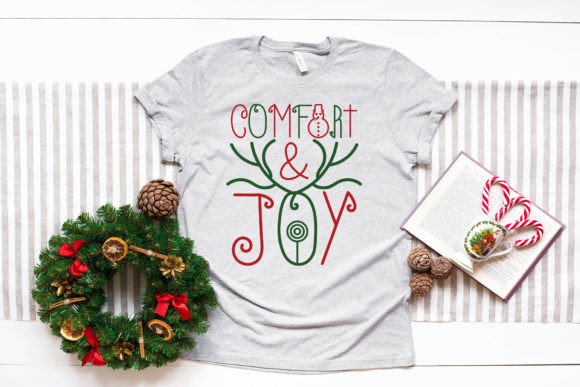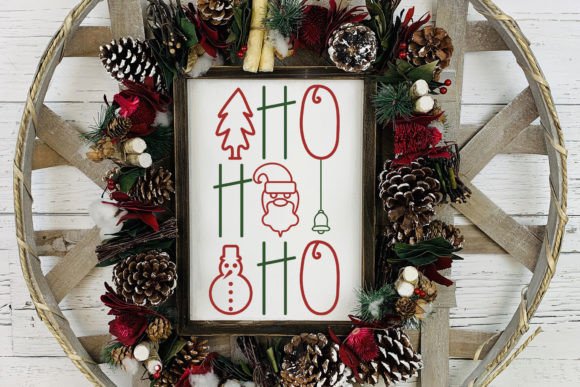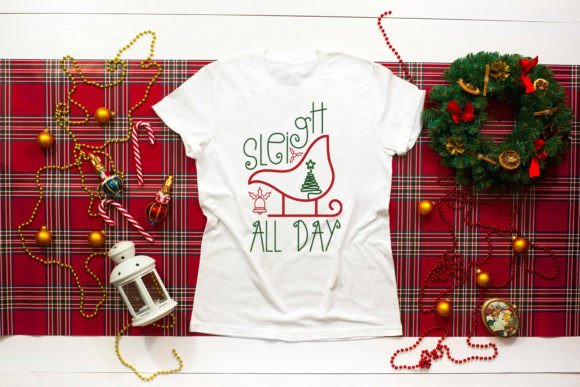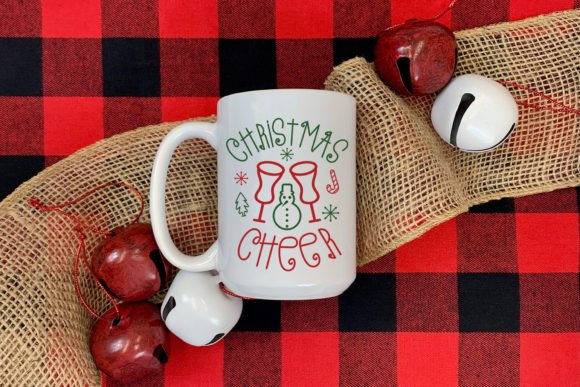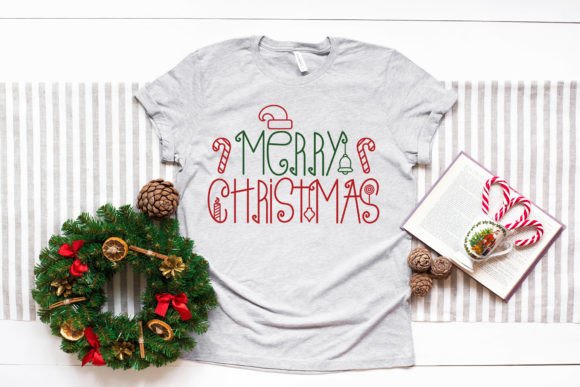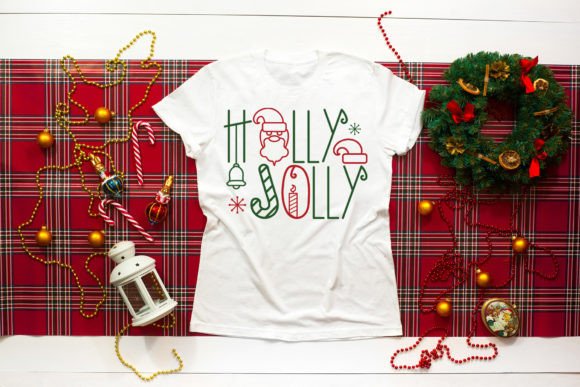
Get into the Holiday Spirit with the Holly Jolly Font
There’s nothing quite like the feeling of curling up with a warm cup of hot cocoa and a blank design project on a chilly winter evening. The snow is falling outside, and the twinkling lights on the Christmas tree cast a magical glow on your workspace. It’s the perfect moment to get creative and infuse your designs with the festive spirit.
Enter the Holly Jolly Font – a delightful handlettered Christmas font that adds a touch of whimsy and warmth to your projects. Whether you’re designing t-shirt graphics, crafting greeting cards, or creating invitations, this charming font is sure to bring a smile to your face and a sparkle to your designs. As a designer, you’ll love the flexibility and versatility of the Holly Jolly Font, making it a valuable addition to your holiday design arsenal.
- Unique Characteristics: The Holly Jolly Font features a festive, handwritten style with bold and playful lines, perfect for creating a fun and whimsical atmosphere.
Holly Jolly Font Review
As a designer, I was excited to dive into the Holly Jolly Font, hoping it would bring a festive touch to my holiday projects. Here’s my honest take on this font:
- The font’s playful, handwritten feel is perfect for creating a whimsical and magical atmosphere.
- The bold weight is great for headlines, adding a touch of sophistication to your designs.
- The font’s thin lines can make it difficult to read in certain contexts, such as small text sizes or low-resolution displays.
- The font’s lack of italic and bold italic styles can limit its versatility in certain design situations.
- The font’s character set is not as extensive as some other fonts, which may limit its use in certain languages or contexts.
Overall, the Holly Jolly Font is a fun and festive addition to any designer’s toolkit. While it has some limitations, its playful feel and compatibility make it a great choice for holiday projects and other whimsical designs.
The Holly Jolly Font is ideal for creating festive and playful designs, such as:
Christmas and holiday cards
Party invitations and decorations
Children’s book illustrations
Alternatives to Holly Jolly Font
Great Vibes is a modern, elegant script font perfect for creating a festive atmosphere without being too traditional. It’s ideal for titles, headings, and quotes. It compares to Holly Jolly Font in its playful feel but has a more sophisticated and stylish look.
Carolyna Pro is a beautiful, luxurious script font that exudes a sense of elegance and sophistication. It’s perfect for creating a high-end, luxurious look and feel. Compared to Holly Jolly Font, Carolyna Pro has a more refined and polished appearance, making it suitable for formal designs.
Alex Brush is a handwritten script font that has a unique, personal touch. It’s ideal for creating a warm and inviting atmosphere and is perfect for titles, headings, and body text. Compared to Holly Jolly Font, Alex Brush has a more rustic and earthy feel, making it suitable for designs that require a more natural and organic look.